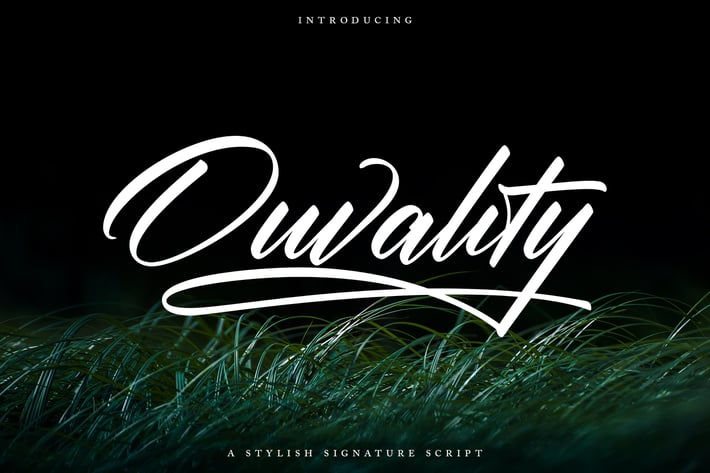
Ouvality Script | A Stylish Signature Script Font
Ouvality Script | A Stylish Signature Script Font with a calligraphy style, So beautiful on invitation like greeting cards, branding materials, business cards, quotes, posters, and more!